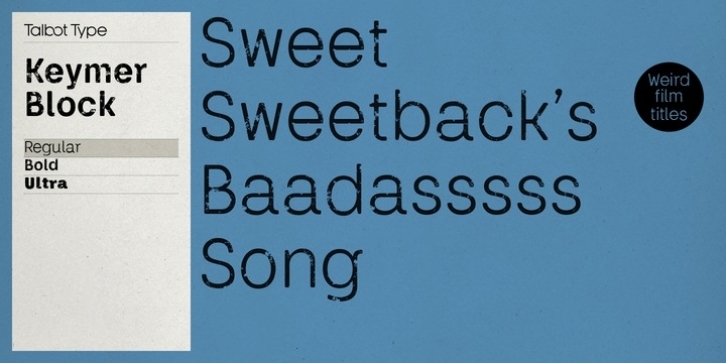
Talbot Type Keymer Block is a display face available in three weights, it is a distressed variation of Keymer Radius . Its textured look brings a characterful, time-worn quality.
Keymer Block features an extended character set to include old style numerals, accented characters for Central European languages and bespoke characters in the italic.